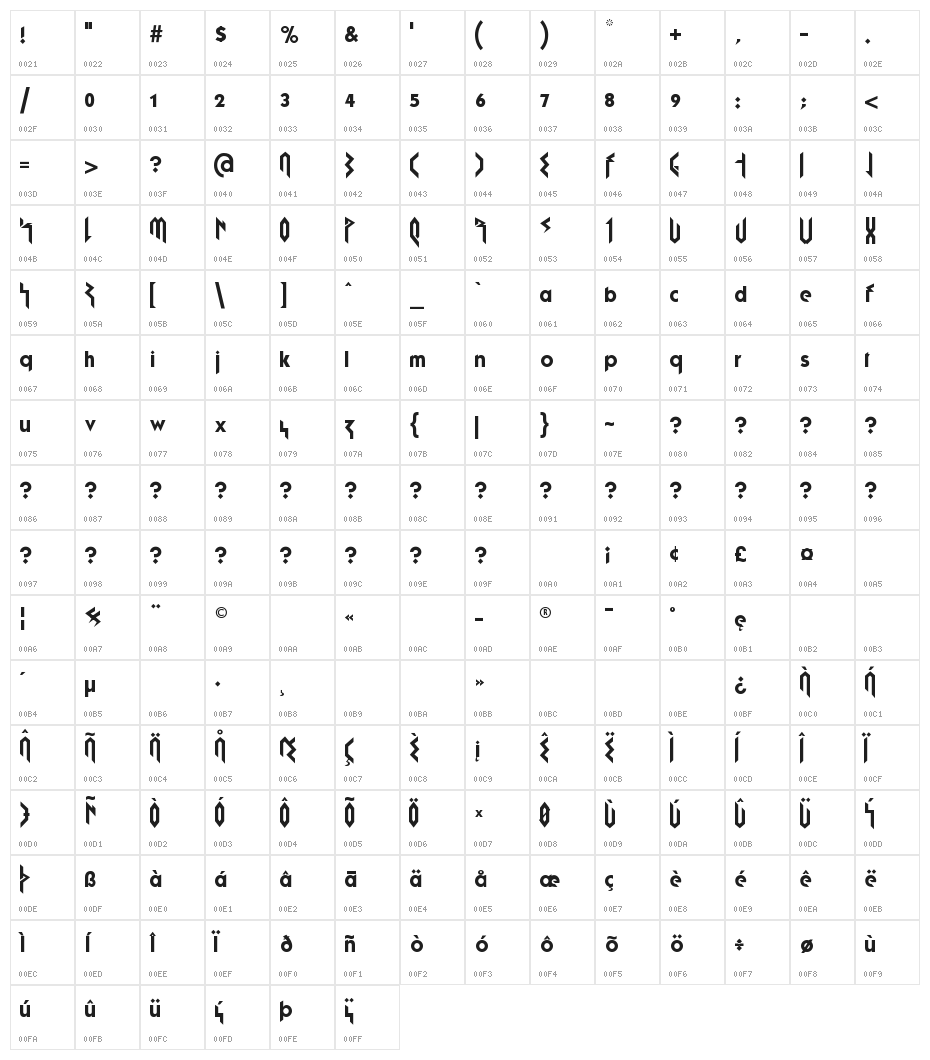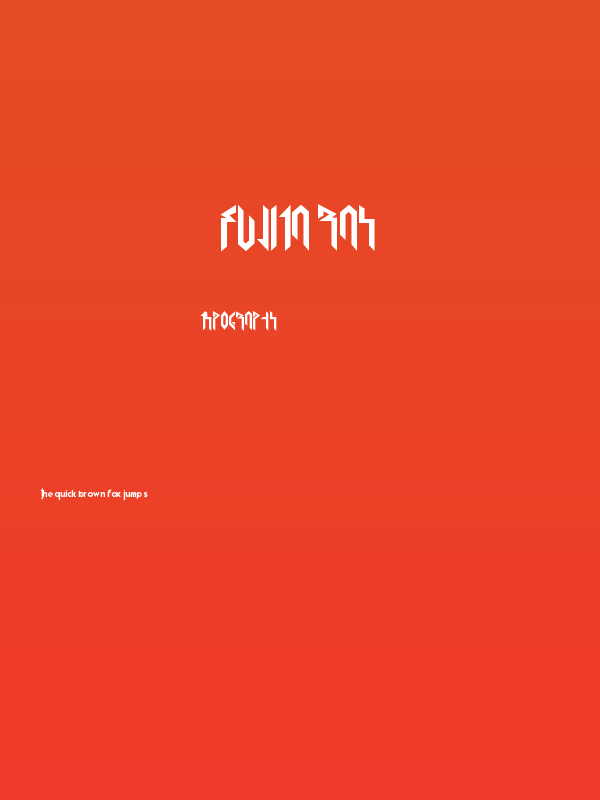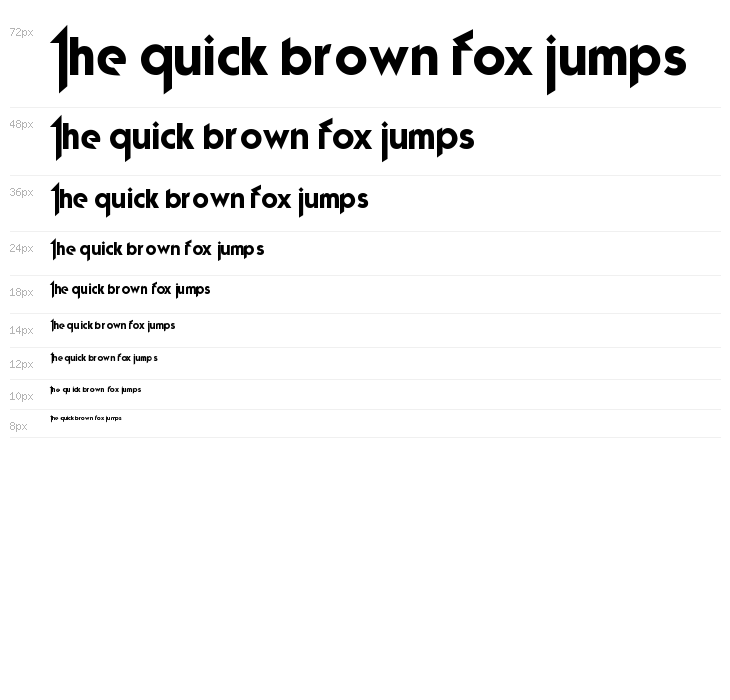
Fujita Ray Font
Fujita Ray Description
This font features a bold and angular design, characterized by sharp edges and geometric shapes. The uppercase letters have a distinct, futuristic appearance with a strong emphasis on vertical and diagonal lines, creating a sense of movement and energy. The lowercase letters maintain the angular theme but with slightly softer curves, providing a balance between rigidity and fluidity. The numerals and special characters are consistent with the overall style, ensuring uniformity across all elements. This font's unique style makes it stand out, offering a modern and edgy aesthetic that is both eye-catching and memorable.
| Proposed Projects | Ideal for sci-fi themed projects, video game titles, movie posters, and branding for tech companies. |